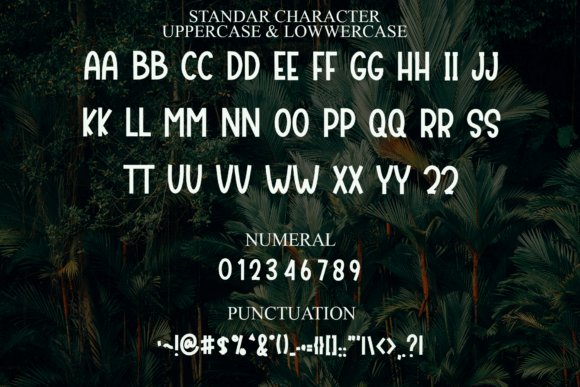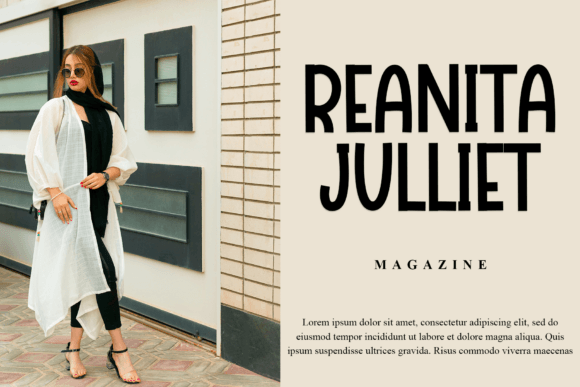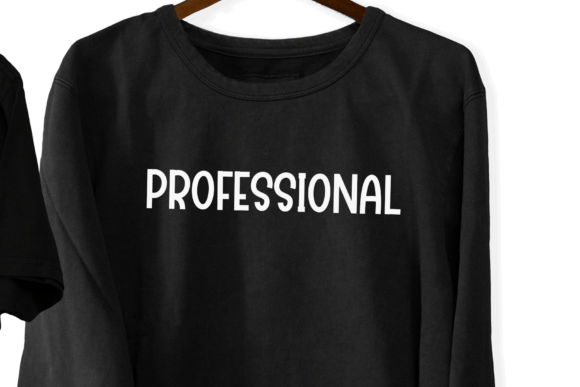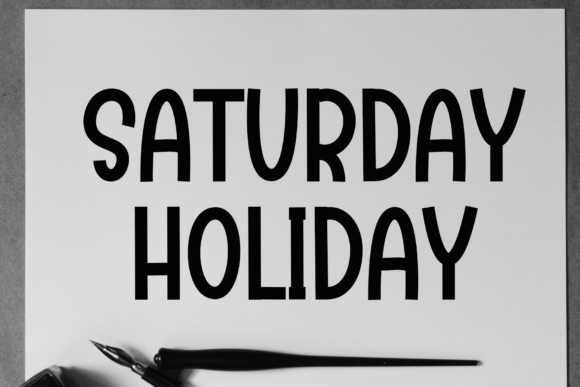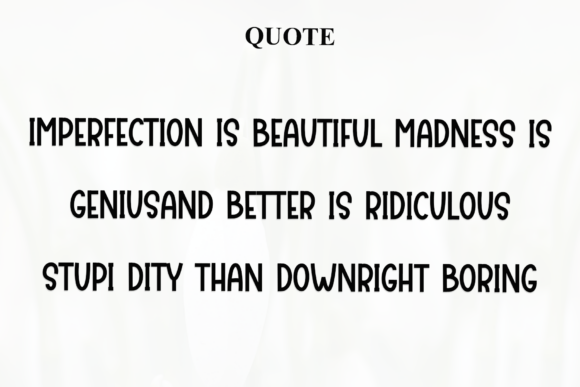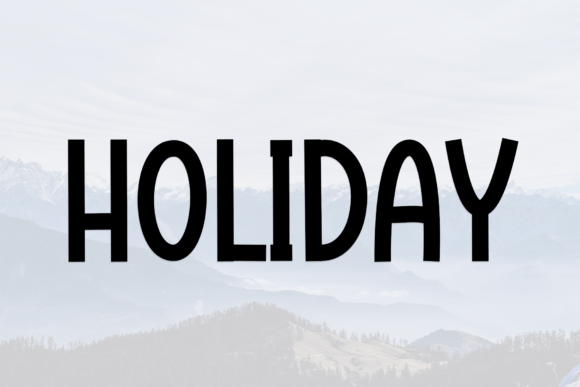
Carmilla Font: A Timeless Handwritten Font for Stunning Designs
Are you looking for a font that can add a touch of elegance and sophistication to your designs? Look no further than the Carmilla font! This lovely and timeless handwritten font is perfect for creating eye-catching logos, branding, and quotes that will leave a lasting impression on your audience.
What Makes Carmilla Font So Special?
Carmilla font is a beautifully crafted handwritten font that boasts a unique and beautiful touch in every letter. Its distinctive style makes it an excellent choice for designers and crafters who want to add a personal touch to their work. Whether you’re creating a logo, branding materials, or quotes, Carmilla font is sure to make your design come alive!
Key Features of Carmilla Font
- Unique and Beautiful Touch: Every letter in the Carmilla font has a unique and beautiful touch that sets it apart from other fonts.
- PUA Encoded: The font is PUA encoded, which means you can access all of the amazing glyphs and ligatures with ease.
- Elegant and Sophisticated: The font’s elegant and sophisticated style makes it perfect for creating high-end designs.
- Versatile: Carmilla font can be used for a wide range of design projects, from logos and branding to quotes and more.
Why Choose Carmilla Font?
There are many reasons why designers and crafters choose Carmilla font for their projects. Here are just a few:
- Easy to Read: The font is easy to read, making it perfect for body text and quotes.
- Highly Versatile: Carmilla font can be used for a wide range of design projects, from elegant logos to beautiful quotes.
- Unique Style: The font’s unique style ensures that your designs will stand out from the crowd.
- PUA Encoding: The font’s PUA encoding makes it easy to access all of the amazing glyphs and ligatures.
How to Use Carmilla Font in Your Designs
Using Carmilla font in your designs is easy! Here are a few tips to get you started:
- Pair it with Other Fonts: Carmilla font pairs well with other fonts, making it easy to create stunning font combinations.
- Experiment with Different Sizes: The font looks great in a variety of sizes, from large headings to smaller body text.
- Use it for Logos and Branding: Carmilla font is perfect for creating elegant logos and branding materials.
- Add a Personal Touch: Use the font’s unique glyphs and ligatures to add a personal touch to your designs.
In conclusion, Carmilla font is a timeless handwritten font that is perfect for designers and crafters who want to add a touch of elegance and sophistication to their designs. Its unique style, PUA encoding, and versatility make it an excellent choice for a wide range of design projects. Whether you’re creating logos, branding materials, or quotes, Carmilla font is sure to make your design come alive!